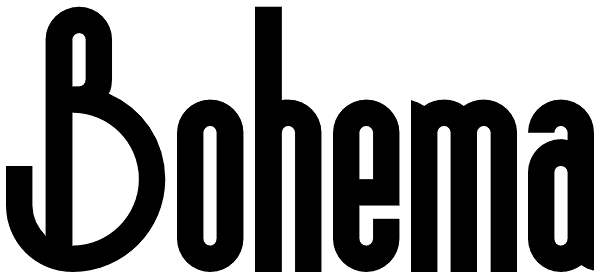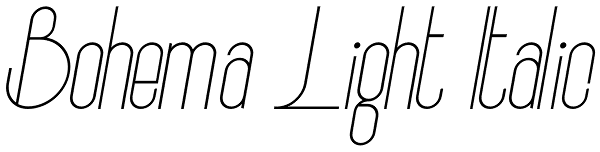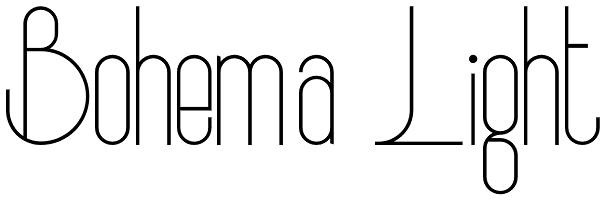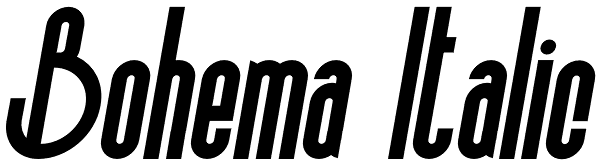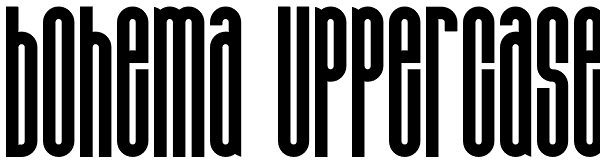
Bohema
Bohema is an Art Deco font with a modern twist, available in 8 distinct styles + 4 alternative ones as a bonus in the full pack and ideal for headlines, branding, merchandising and a special occasion that requires a different typeface. By buying the...